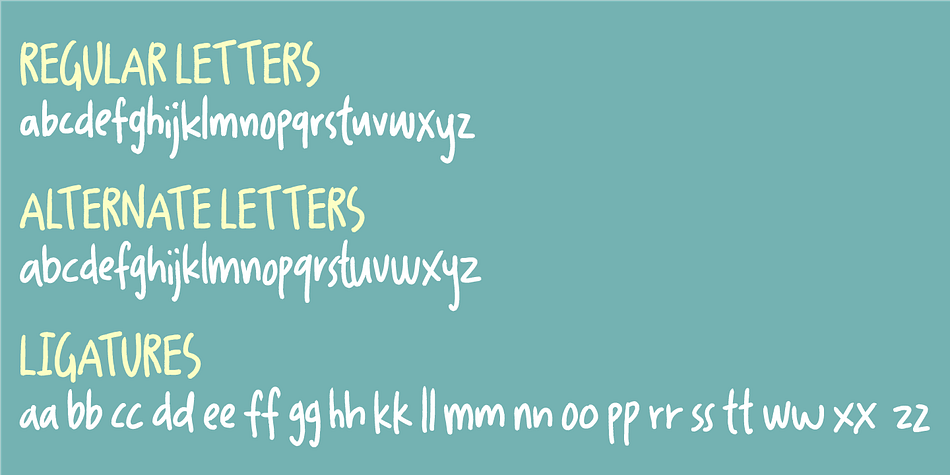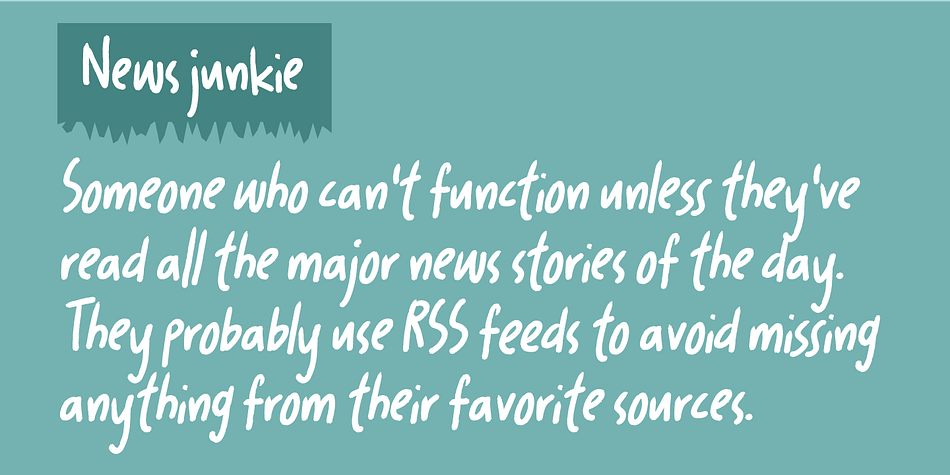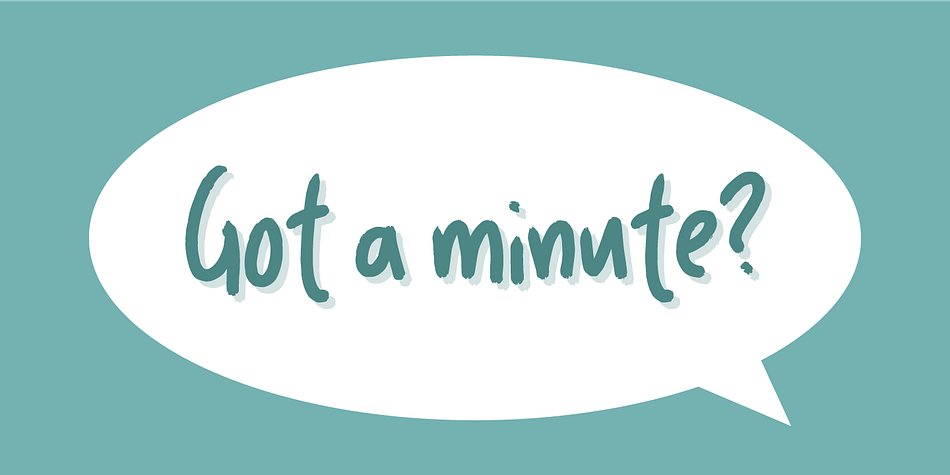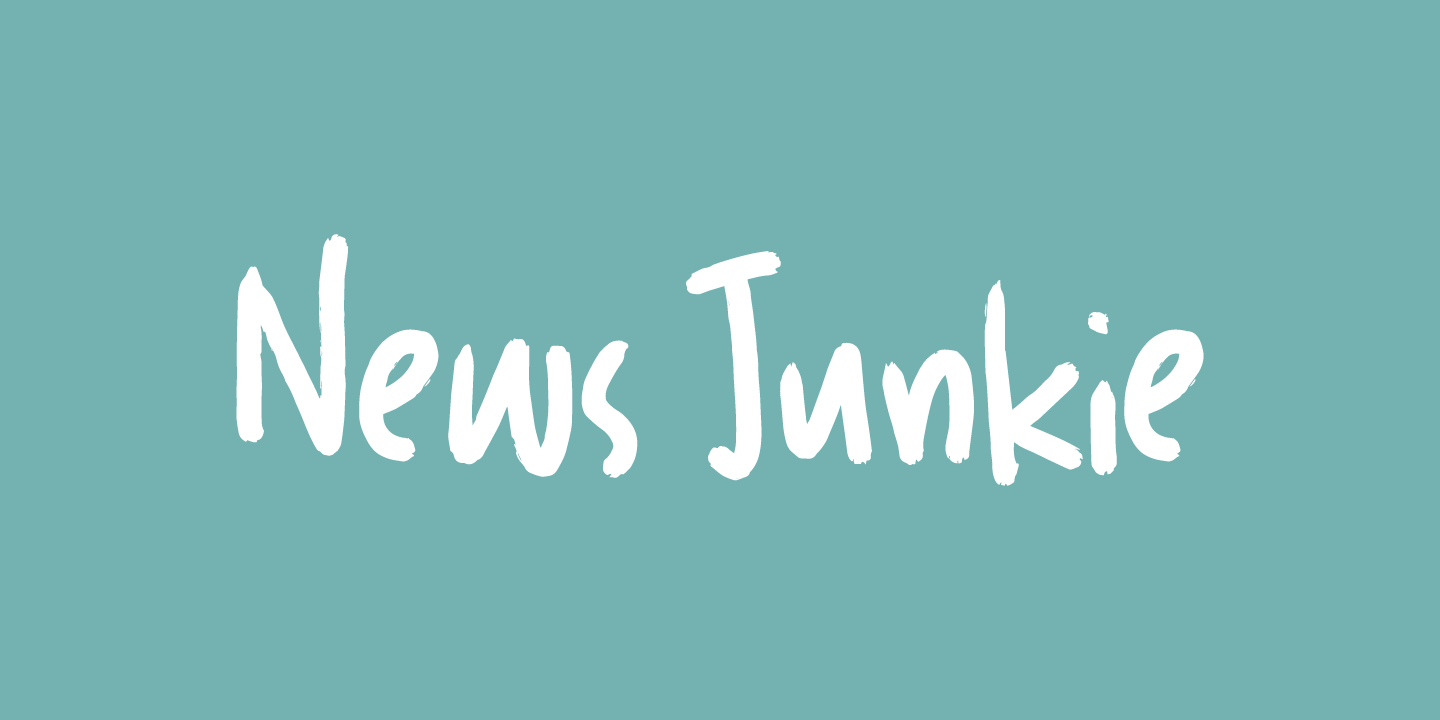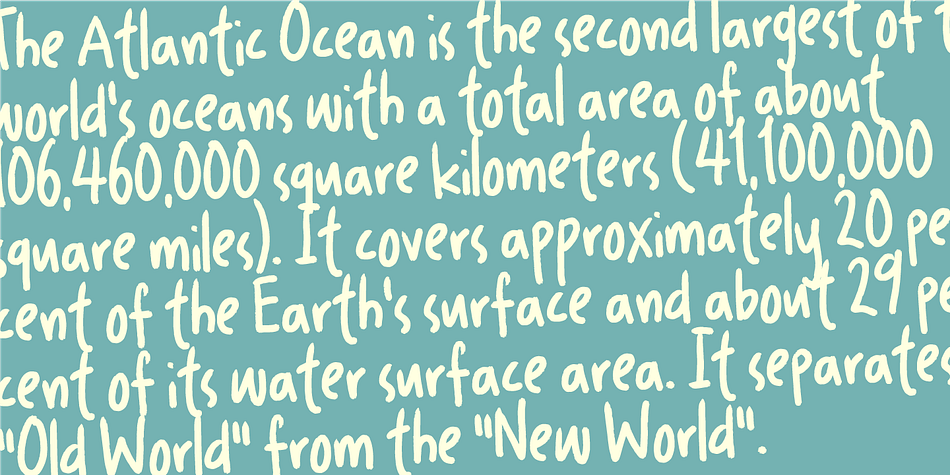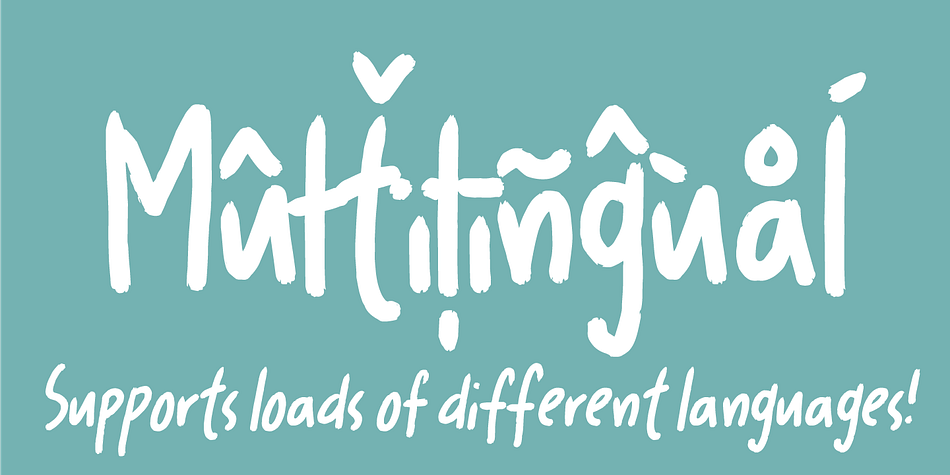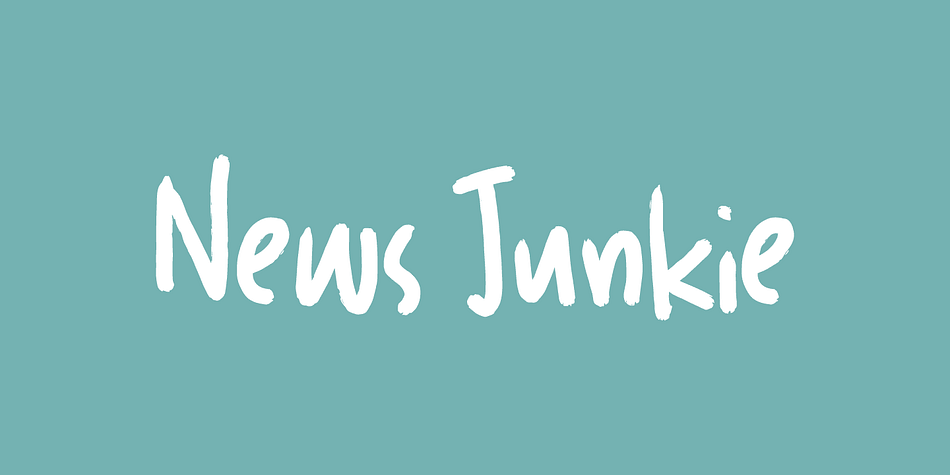
Designed by Jakob Fischer, News Junkie is a hand drawn font family. This typeface has two styles and was published by Bogstav.
Handscribbled font that works well with ALL CAPS and lowercase. To avoid repeating letters, I have included both ligatures for double letters and an alternative letter for each lowercase.
Also, multilingual support, for all you who needs that!